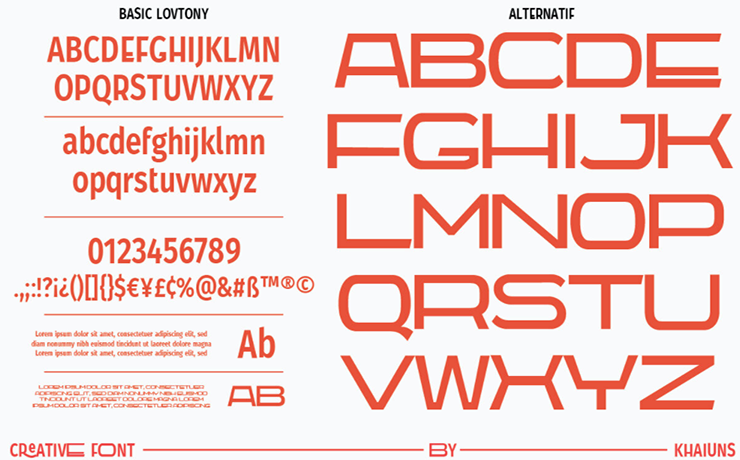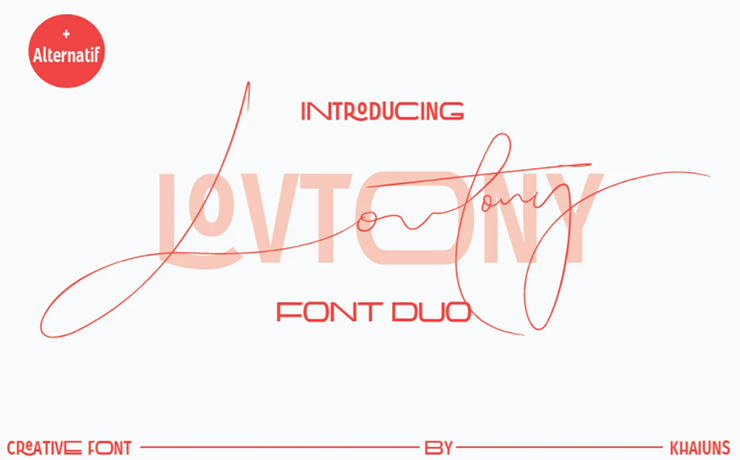
Finding the right pair of luxurious fonts for design projects is one of the things most designers struggle with. But, when using Lovtony Font Duo, you don’t have to worry about it.
Lovtony Font Due pack comes with a pair of fonts. Featuring a pair of sans serif and script handwriting fonts that appear perfect together.
This classic font pairs with a beautiful script and sans serif is a good choice for creating beautiful logos, posters, wedding invitations, blog posts, social media, and more.
The designer team created it with squares, circles, and triangle lines. Therefore, each letter is presented in a unique repetition with appropriate height and width.
| Style: | Modern, Sans Serif, Script |
This beautiful font will come in handy if you are working on a project related to photography, fashion, or lifestyle.
It features a unique design that will fit in perfectly for beautiful logos, posters, wedding invitations, blog posts, social media, headlines, advertisements, banners, newspapers, news headlines, printing on cards, product designs, t-shirt printing, etc.
This font family contains two weights and support LOTS of ligatures that are carefully created to fit on each other.